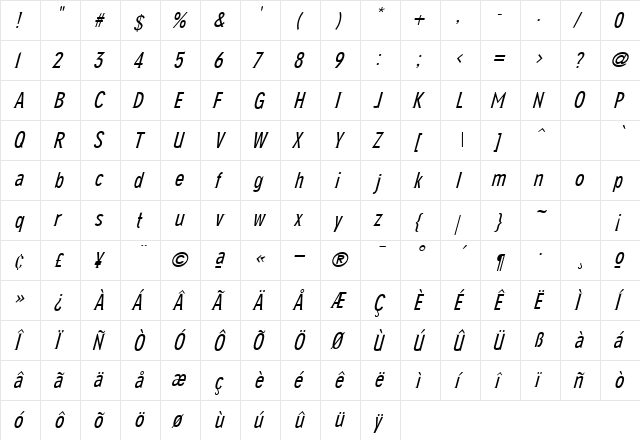
NewGlobalLight Italic
Design Context for NewGlobalLight Typeface
NewGlobalLight is a composed and adaptable typeface that performs quietly and consistently across a wide range of design contexts. The dynamic lean of this cut emphasises speed and emphasis in any layout. Its slender proportions lend an understated elegance to any composition.
Pro Tip: Use NewGlobalLight for emphasis, pull quotes, and subheadings where its slanted energy can add rhythm to the layout.